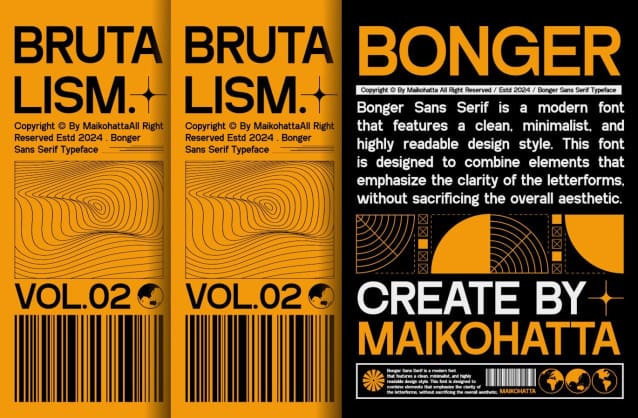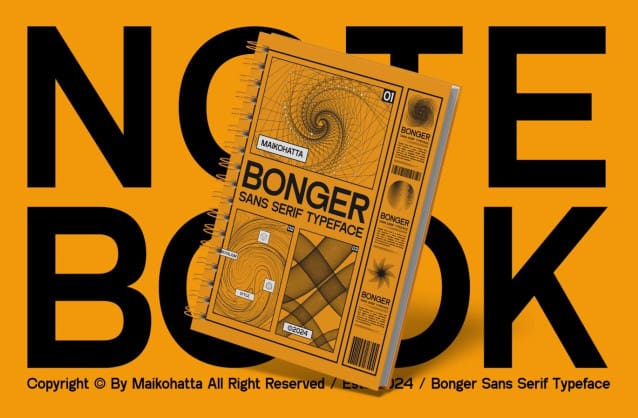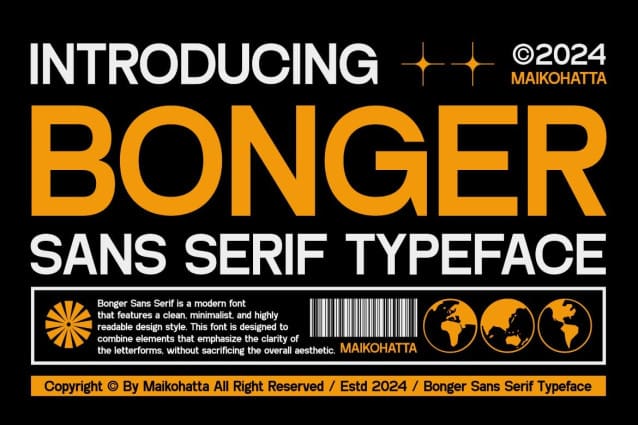
Bonger Font
Bonger Font – Sans Serif typeface is a bold and authentic display font. The font is suitable for all branding projects such as Logo, Template Design, esports, etc. It is exceptional in a wide range of contexts